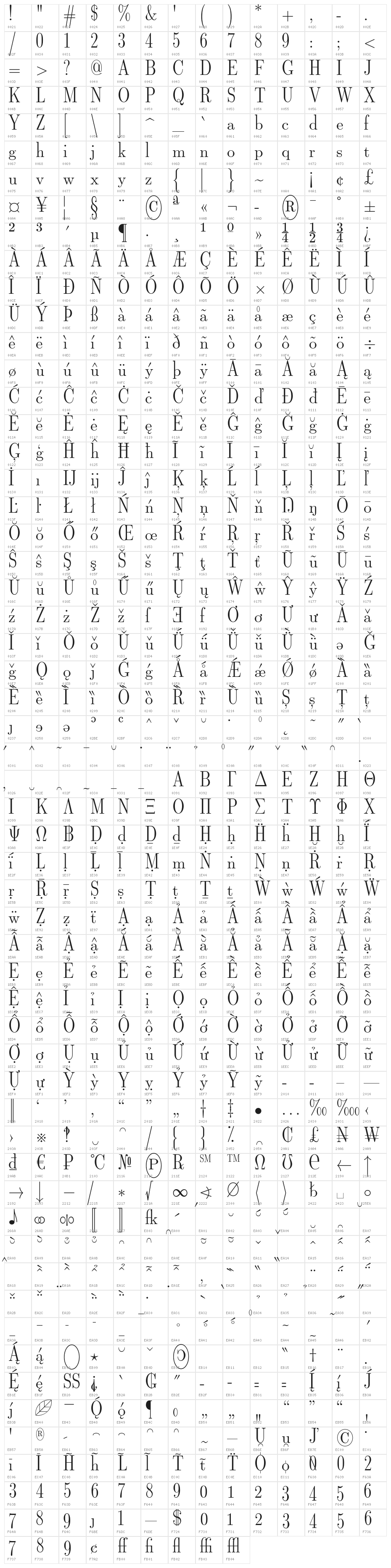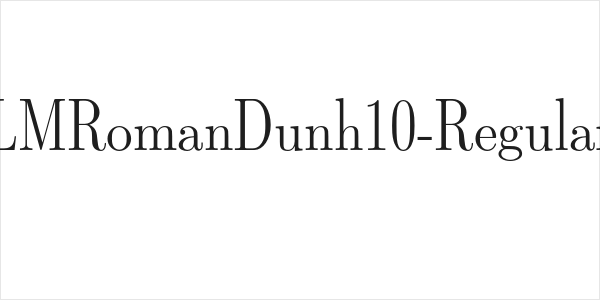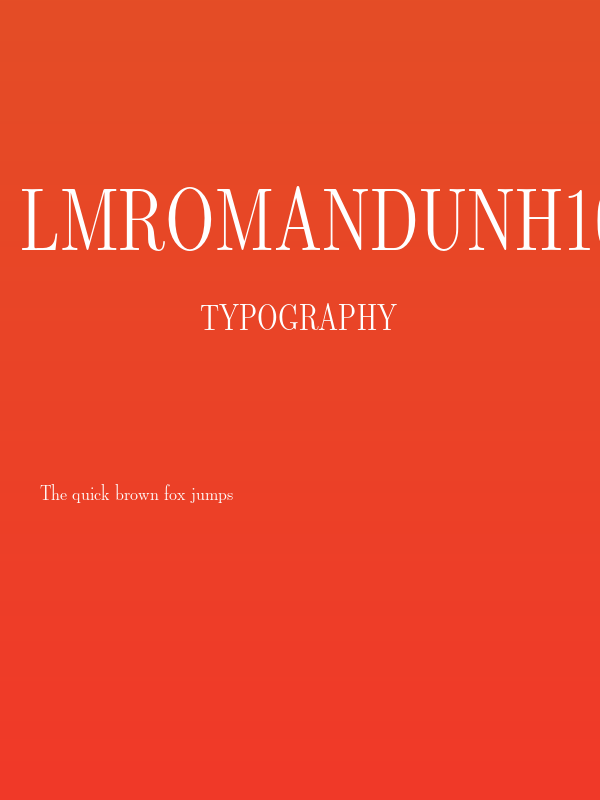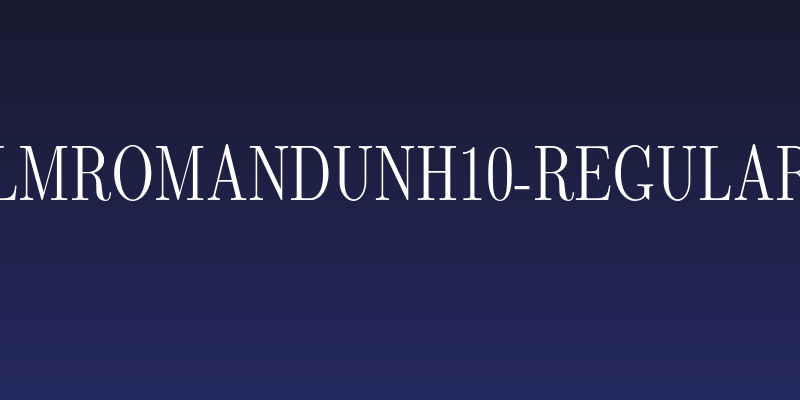
LMRomanDunh10-Regular Font
LMRomanDunh10-Regular Description
This font features a classic serif design with elegant and refined strokes. The characters exhibit a high contrast between thick and thin lines, giving it a sophisticated and traditional appearance. The serifs are prominent and sharply defined, adding to the font's readability and timeless aesthetic. The uppercase letters are stately and well-proportioned, while the lowercase letters maintain a harmonious balance, enhancing the overall legibility. The numerals are distinct and clear, with a consistent style that complements the alphabetic characters. Special characters are thoughtfully designed, maintaining the font's cohesive look.
| Use Case | Headlines, Body text, Editorial design |
| Proposed Projects | Ideal for use in editorial design, book publishing, formal invitations, and branding projects that require a touch of elegance and tradition. |